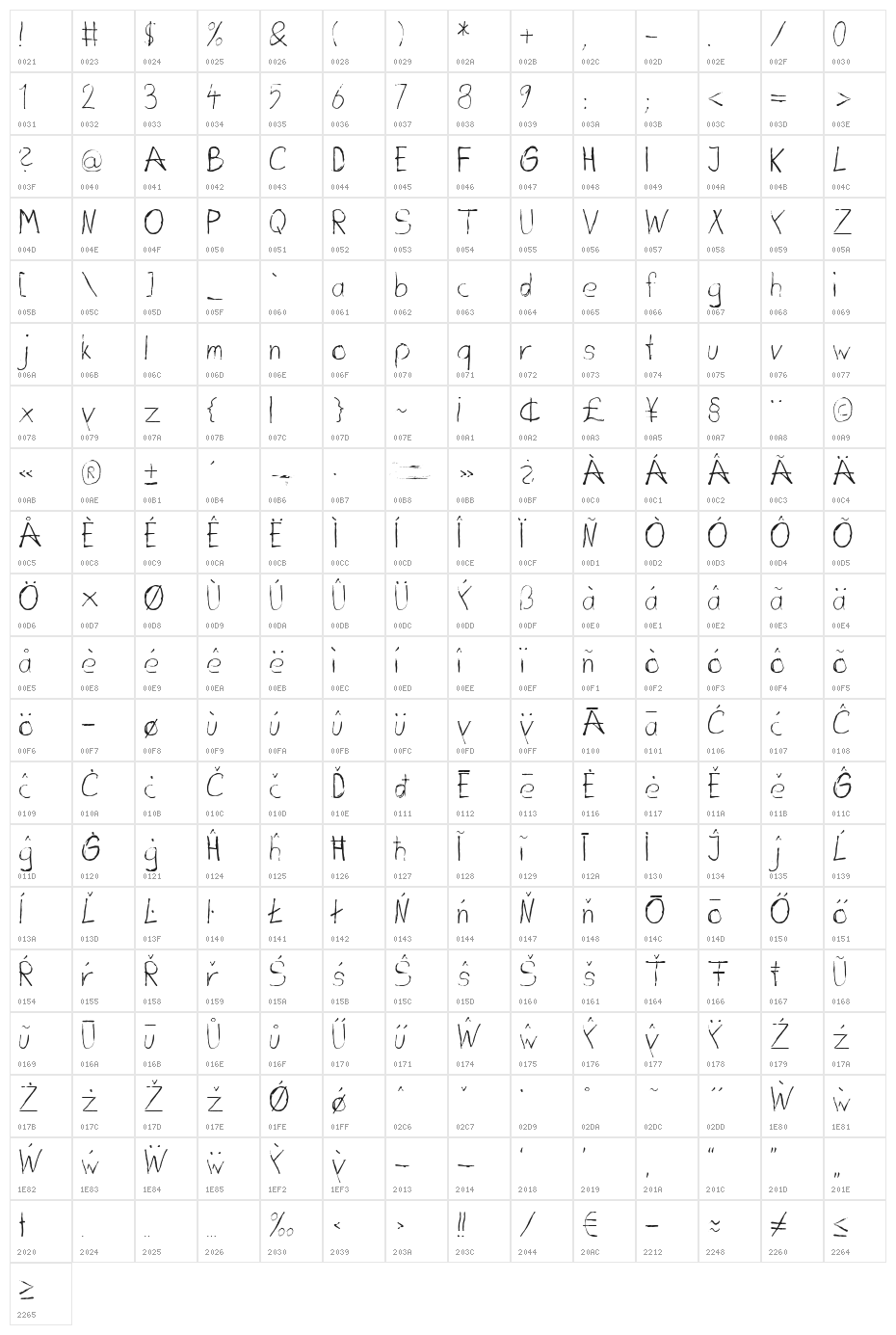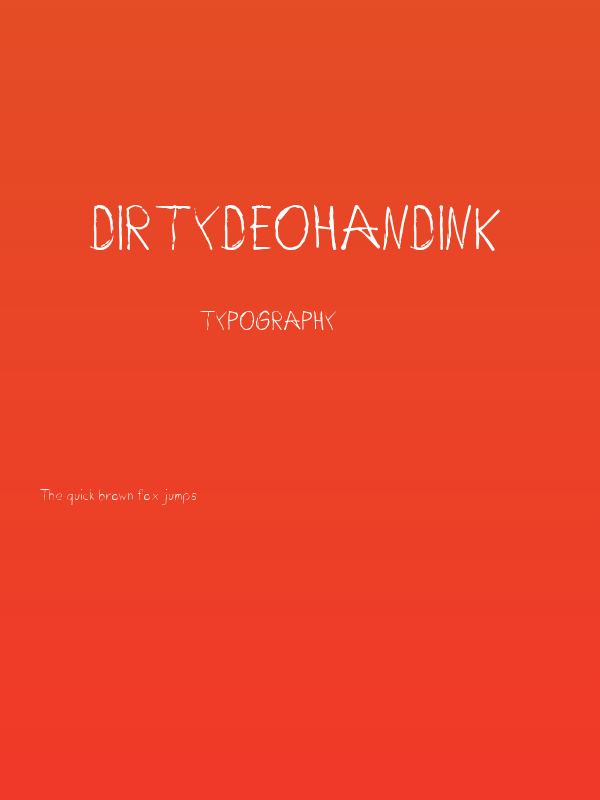
dirtyDeoHandInk Font
dirtyDeoHandInk Description
This font features a hand-drawn, ink-like style that gives it a raw and organic feel. The characters are uneven and slightly distressed, adding a sense of authenticity and personality. The uppercase and lowercase letters maintain a consistent style, with a playful and casual appearance. The numbers and special characters follow the same aesthetic, making the font versatile for various creative projects. The strokes are irregular, mimicking the effect of a brush or pen, which enhances its artistic and informal vibe.
Proposed ProjectsIdeal for artistic projects, personal branding, invitations, and creative posters.